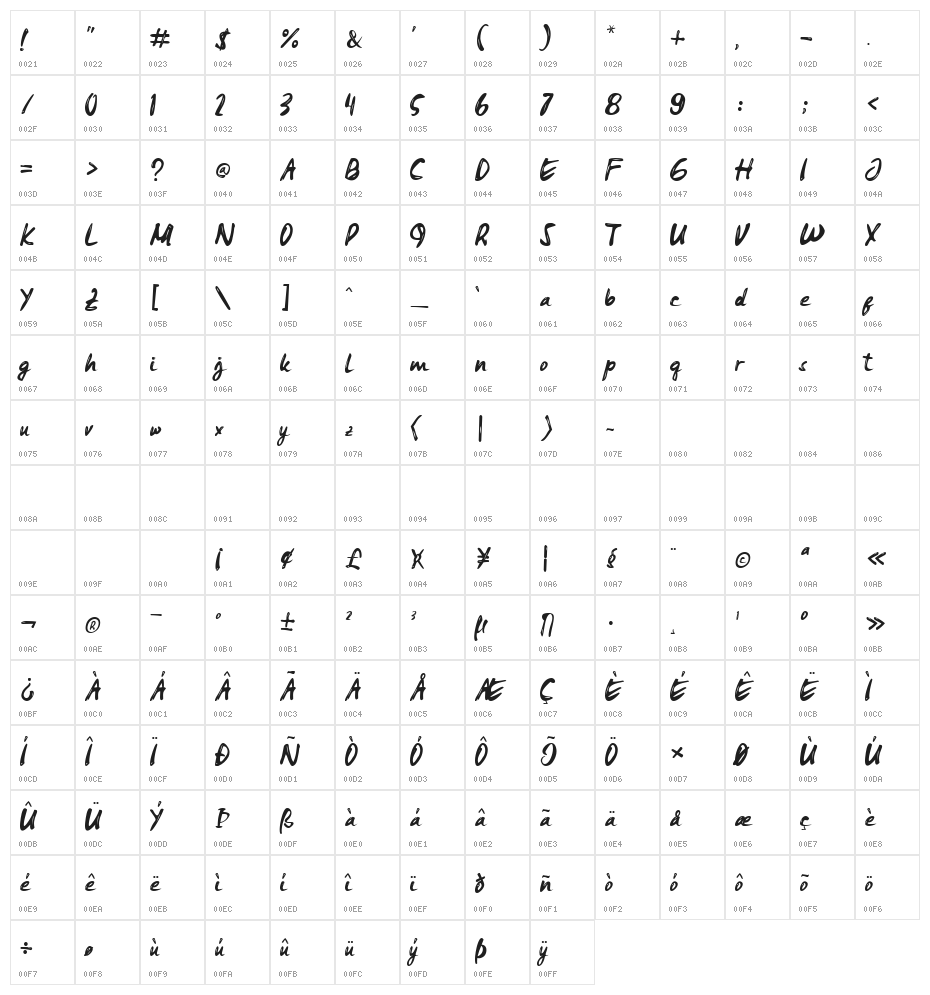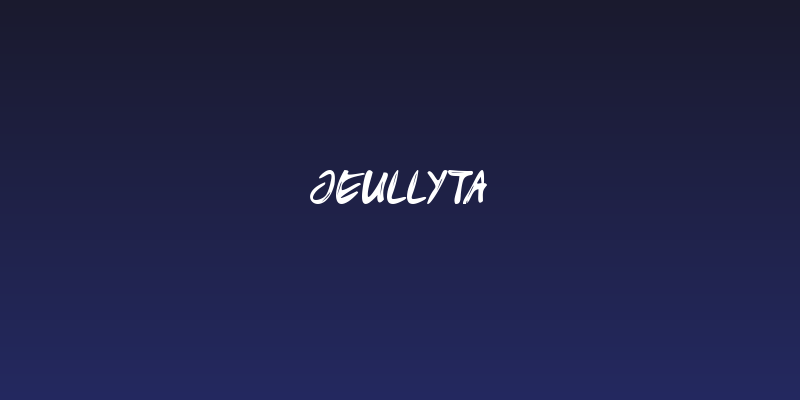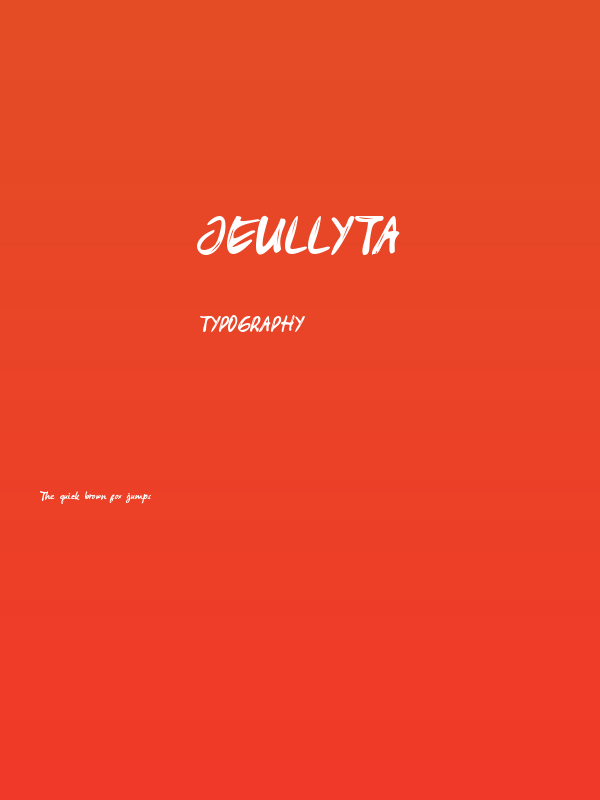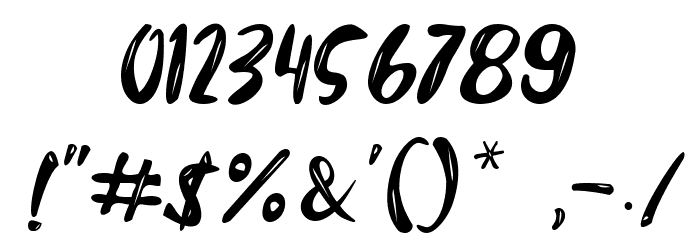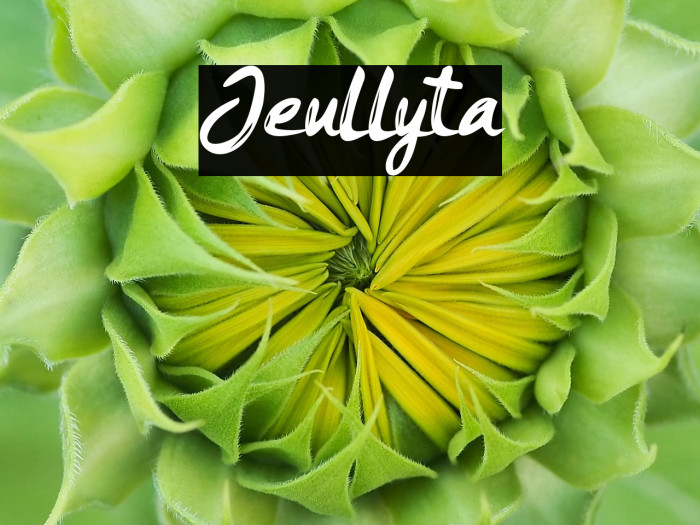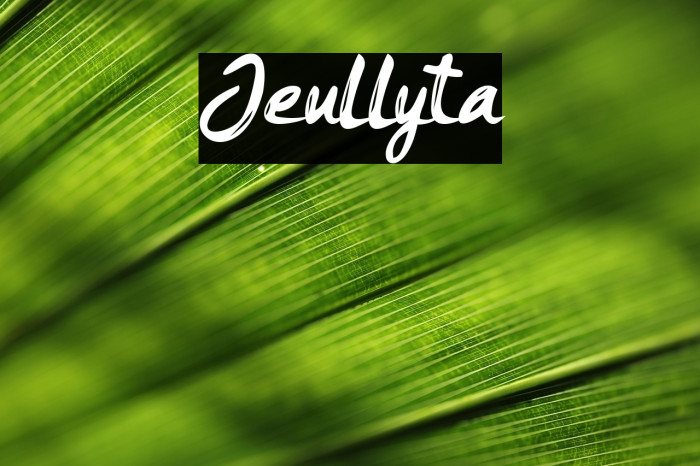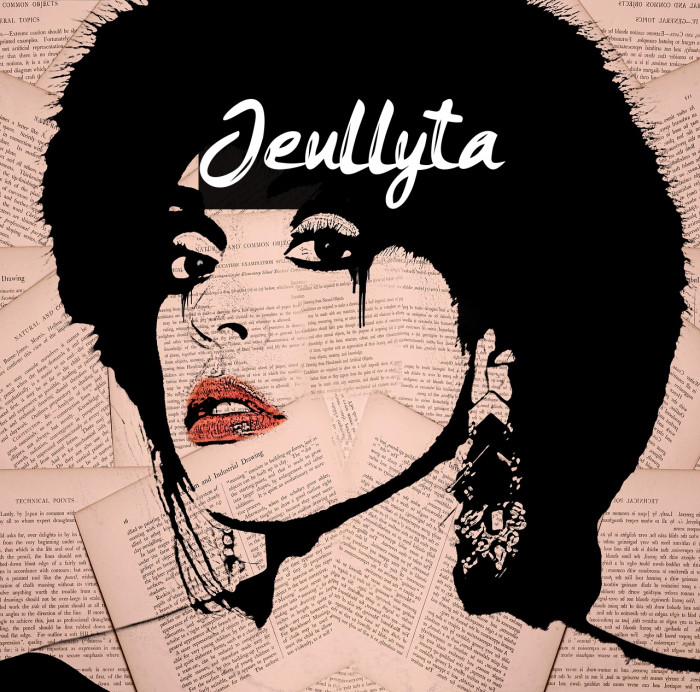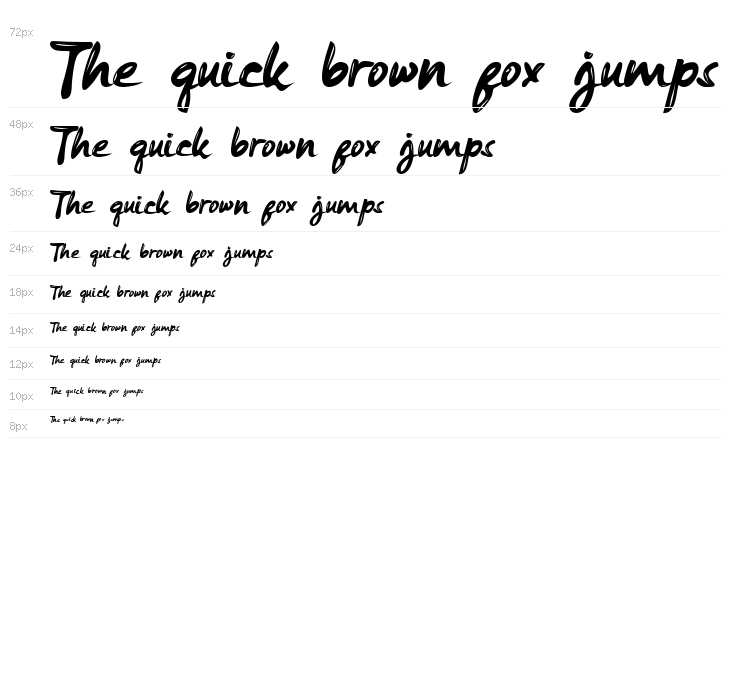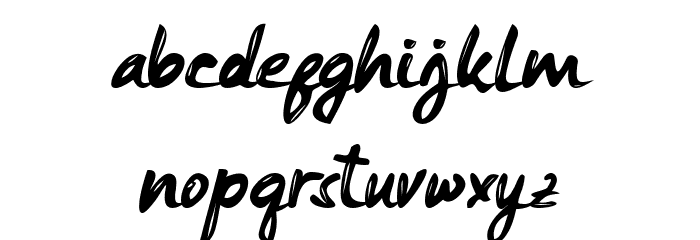
Jeullyta Font
Jeullyta Description
This font exhibits a dynamic and energetic style, characterized by its bold and fluid strokes. The letters are crafted with a sense of motion, giving them a lively and expressive appearance. The uppercase and lowercase letters maintain a consistent flow, with slightly exaggerated curves and angles that add to the font's playful nature. The numbers and special characters are equally bold, ensuring readability while maintaining the overall aesthetic. This font's unique style makes it suitable for projects that require a touch of creativity and flair.
| Proposed Projects | Ideal for branding, advertising, posters, and creative projects that require a lively and dynamic touch. |